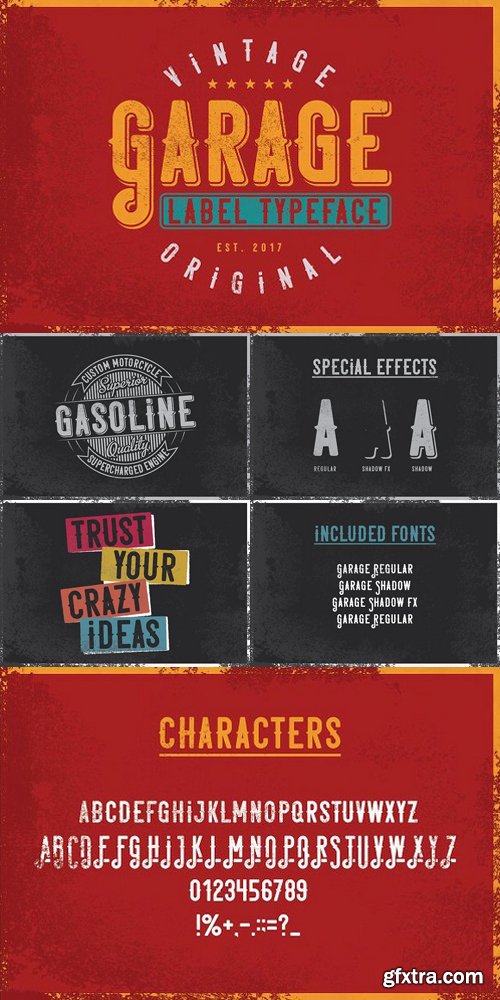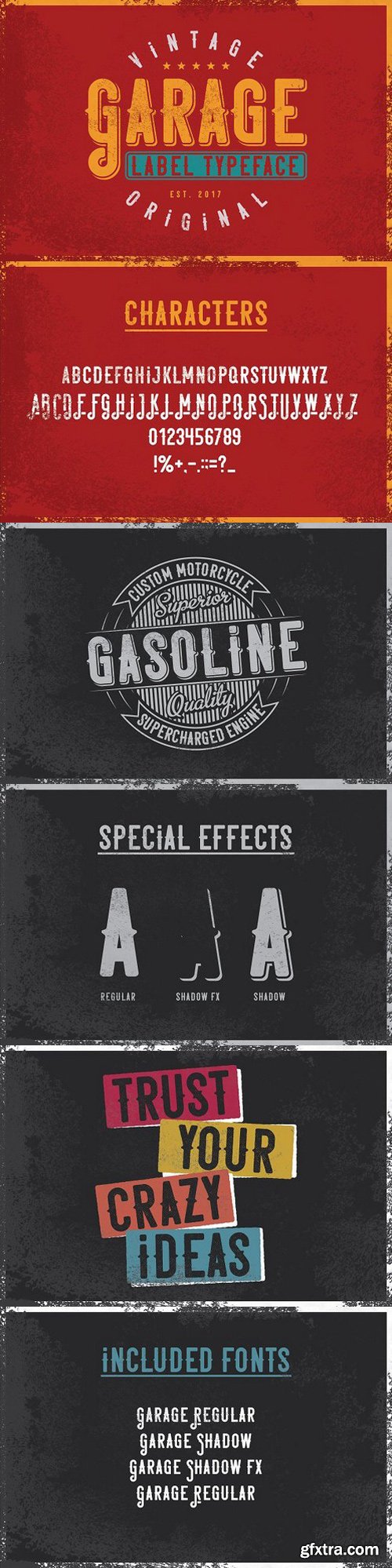
Garage typeface
Introducing a vintage look label typeface named "Garage". It's made in strong and vintage label style. Typeface is good viewed on any labels design.